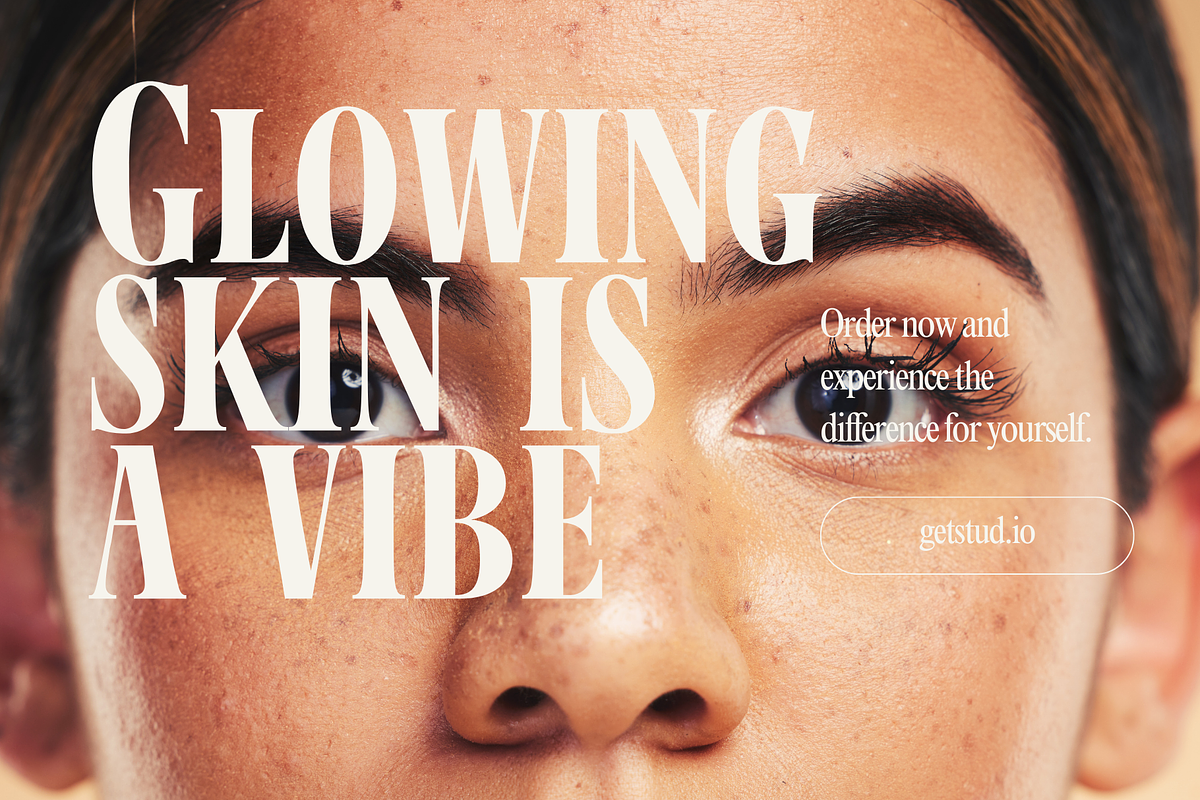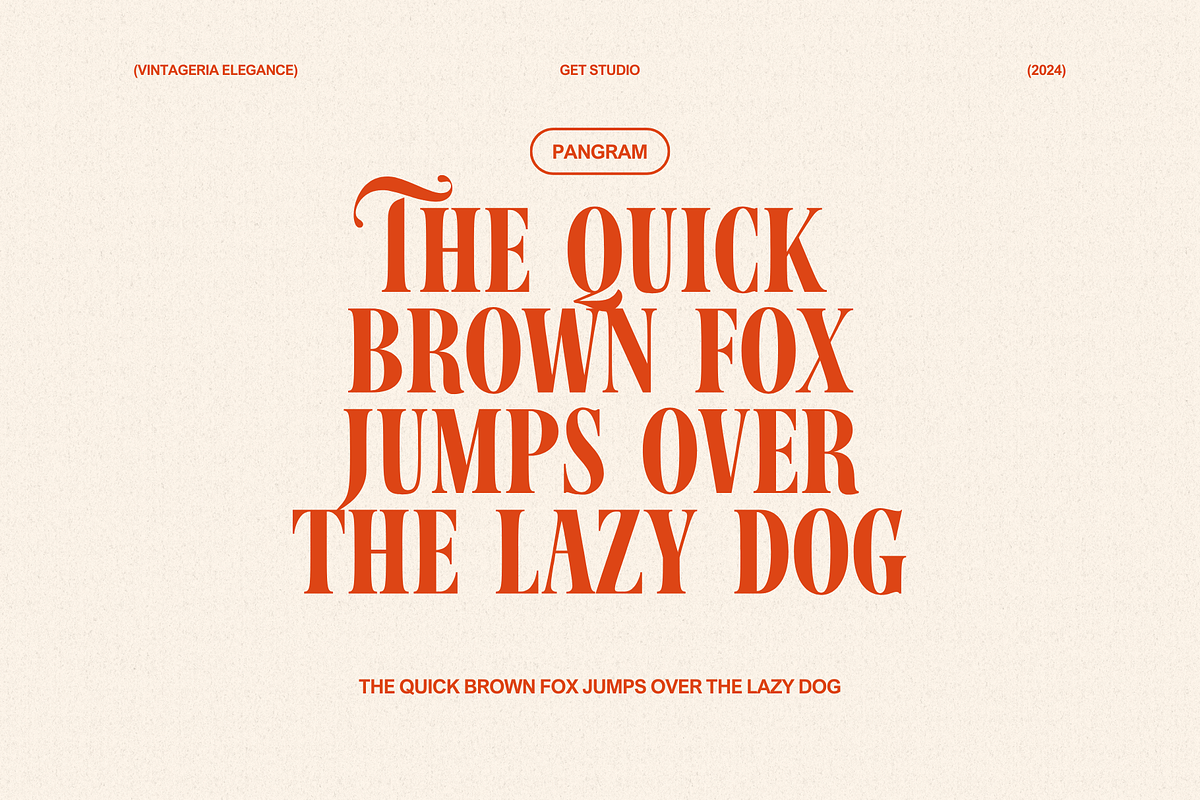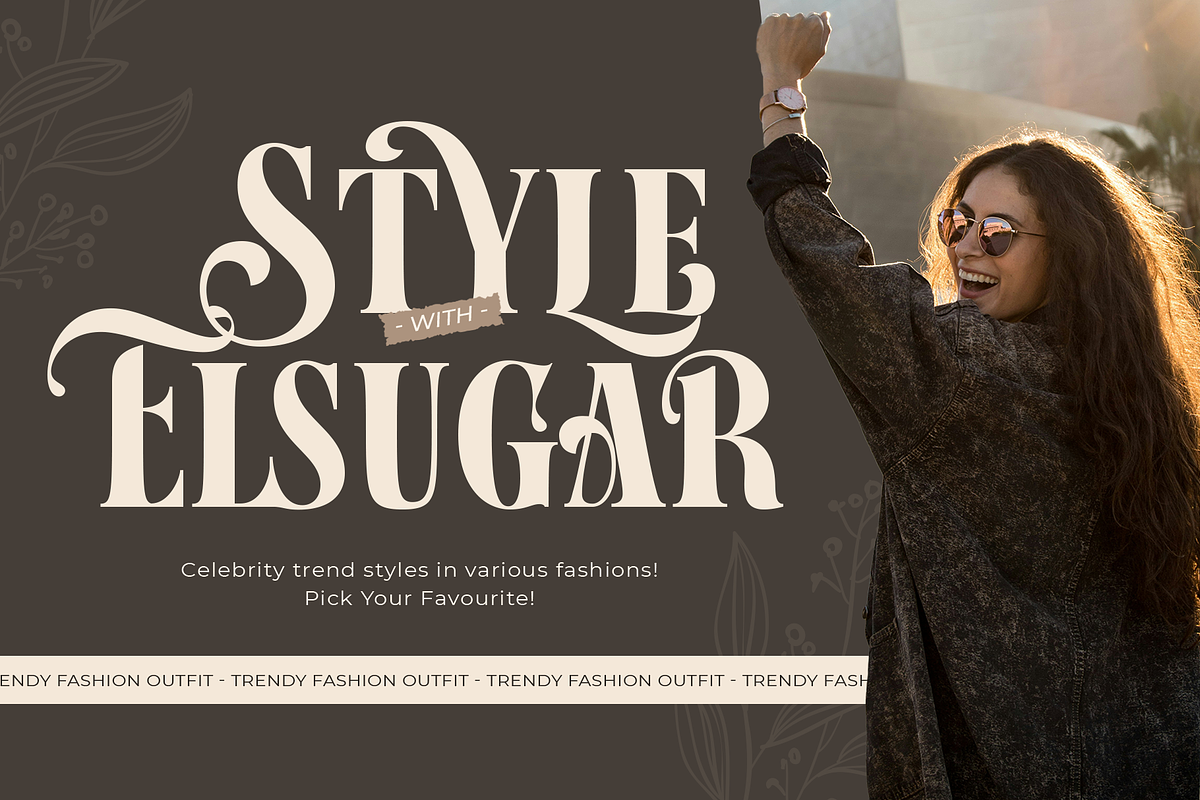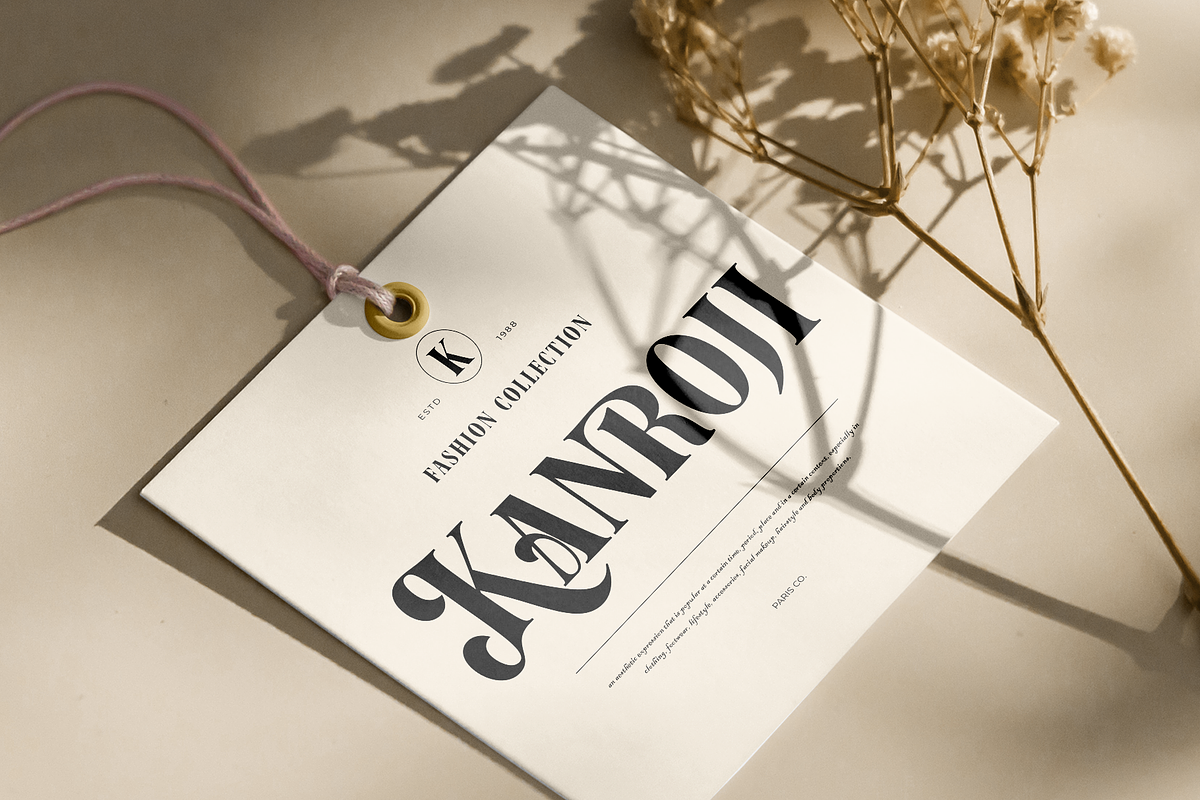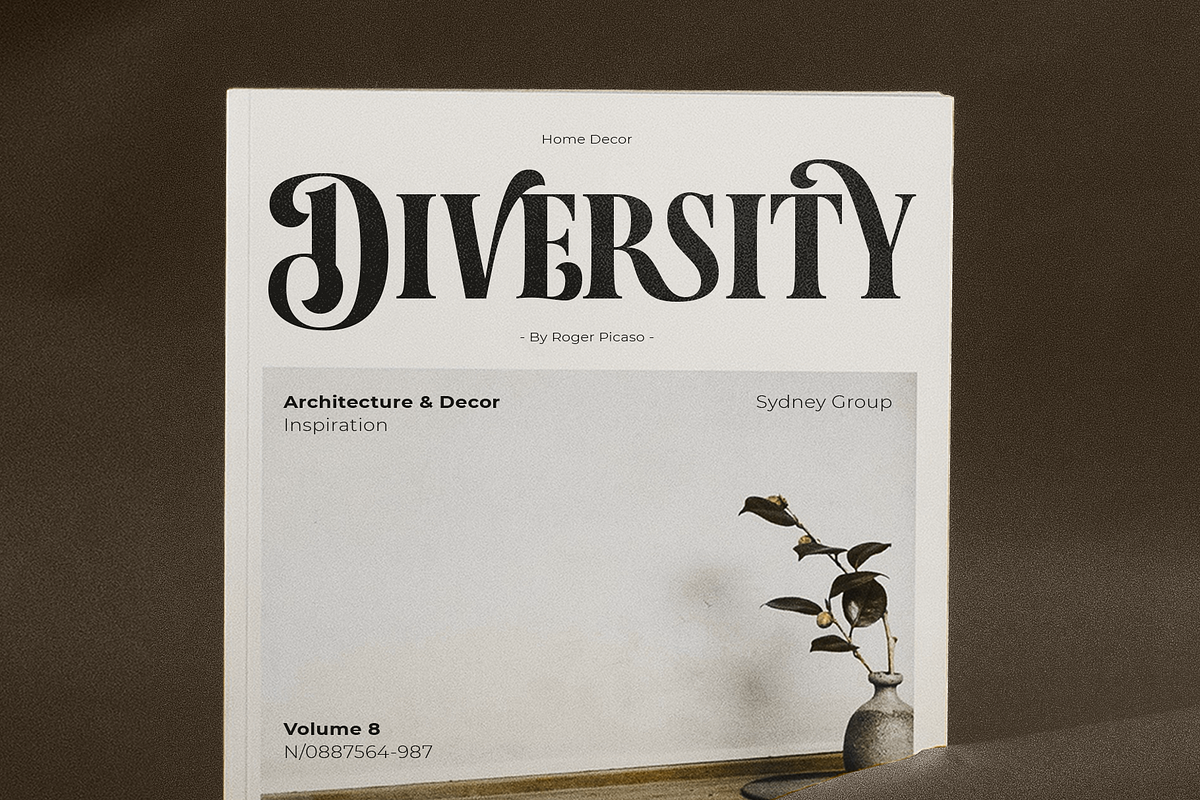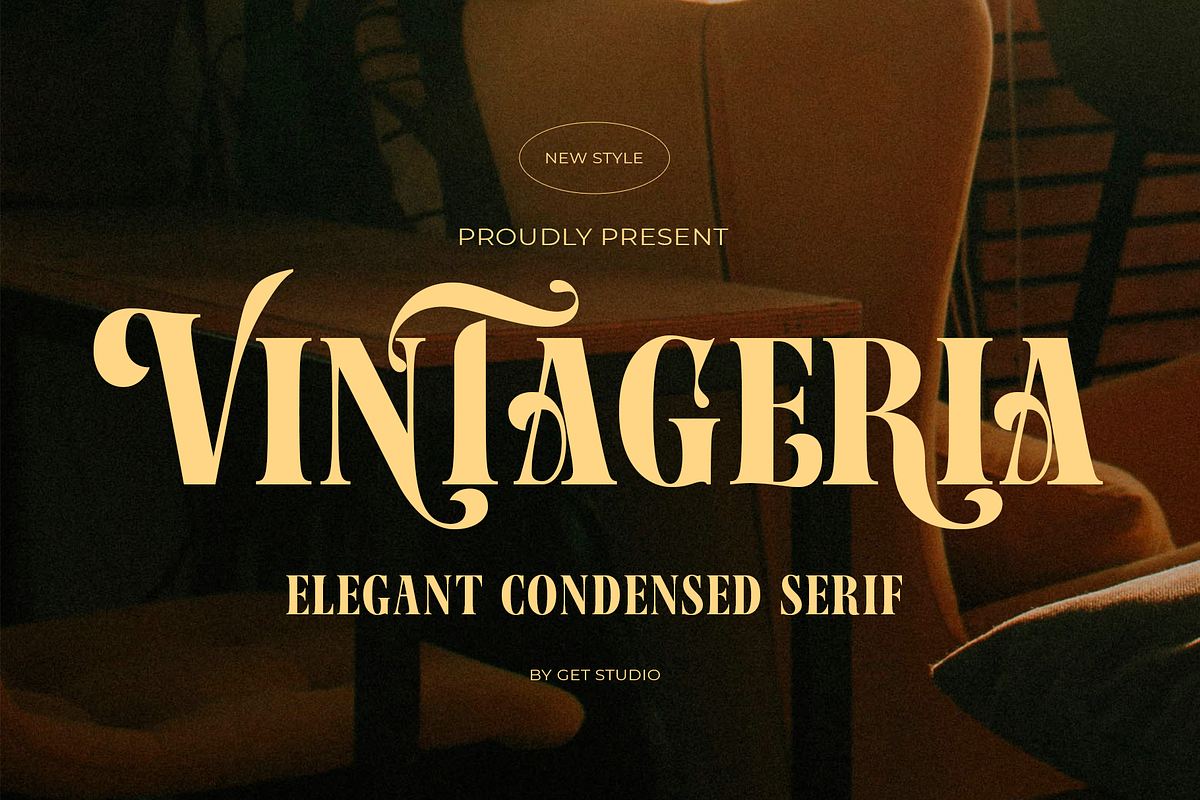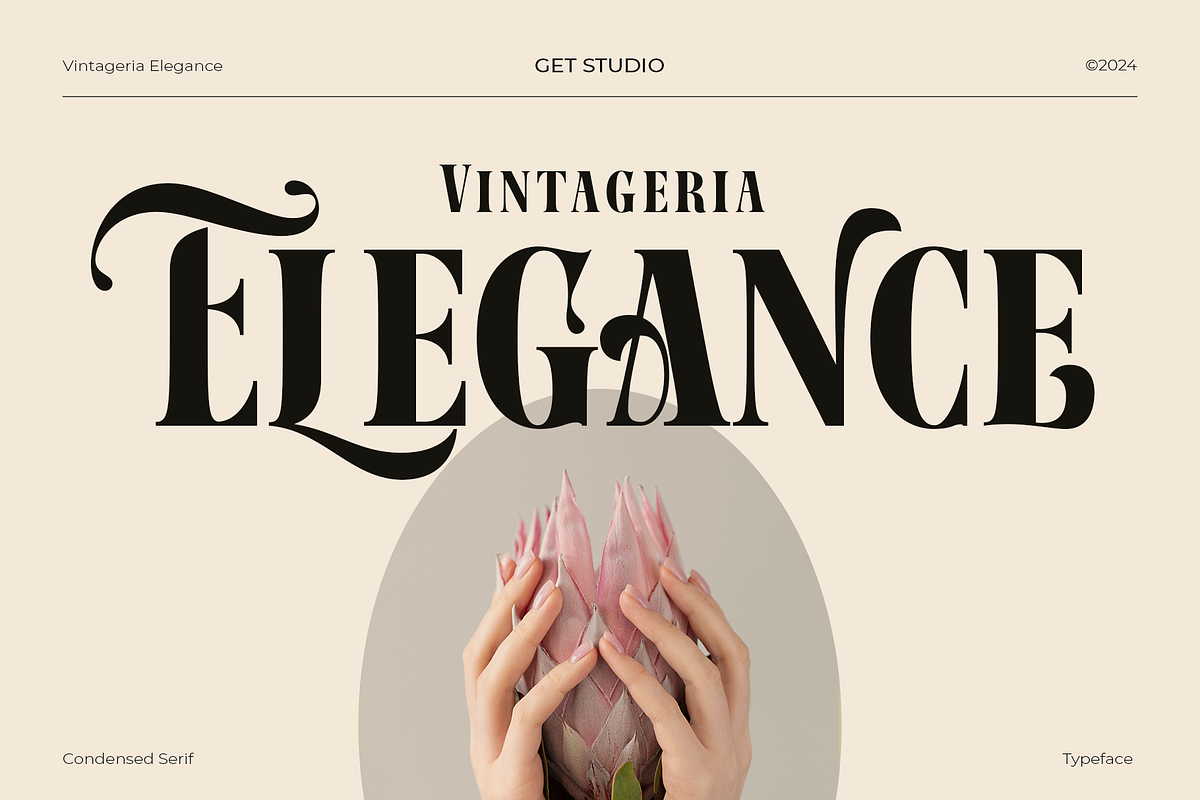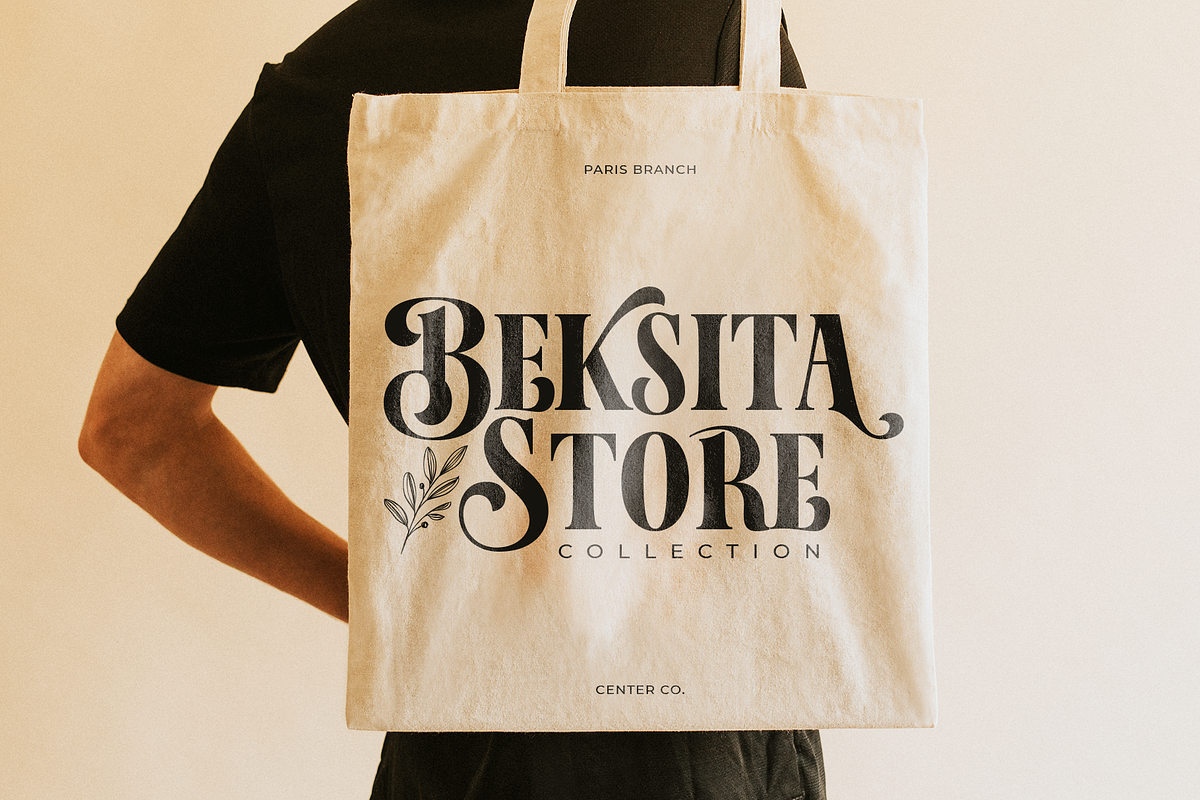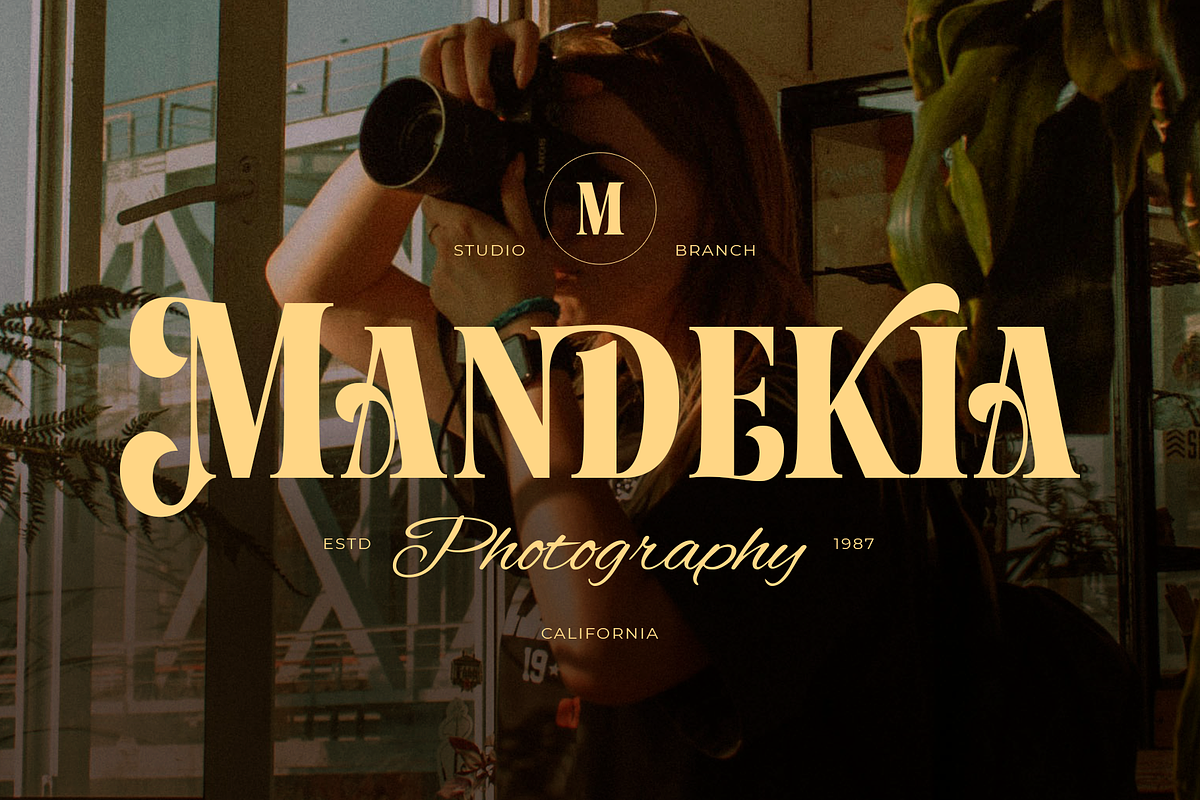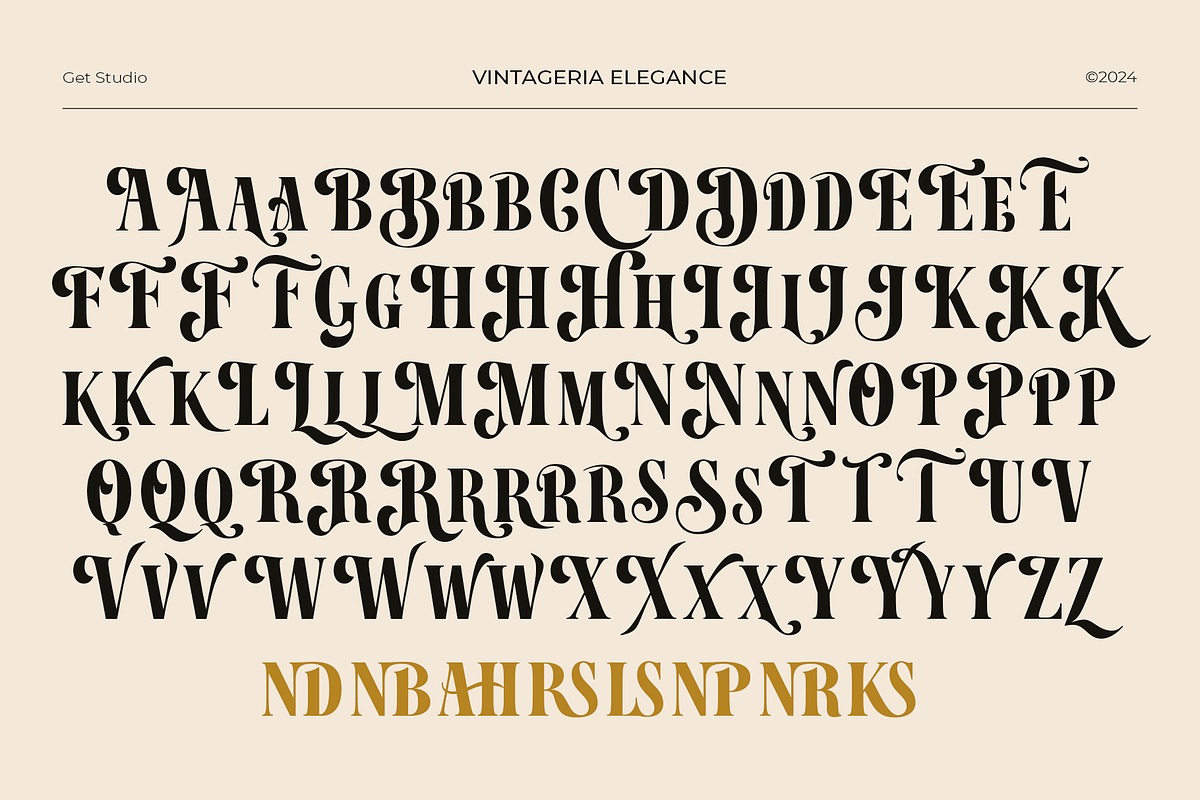
Vintageria Elegance
Introducing "Vintageria Elegance," a modern vintage all-caps serif font that combines classic serif elegance with a contemporary twist, making it versatile for various design projects. This font features a wide range of alternate characters, allowing for creative flexibility and unique typographic expressions.
With its bold, clean lines and refined details, Vintageria Elegance stands out in any design, adding a touch of sophistication and nostalgia. Ideal for branding, editorial design, and any project requiring a striking yet timeless aesthetic.